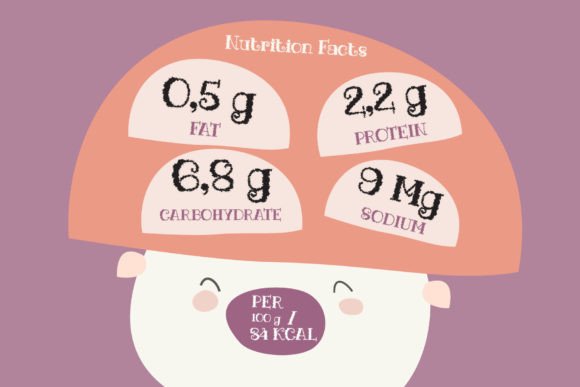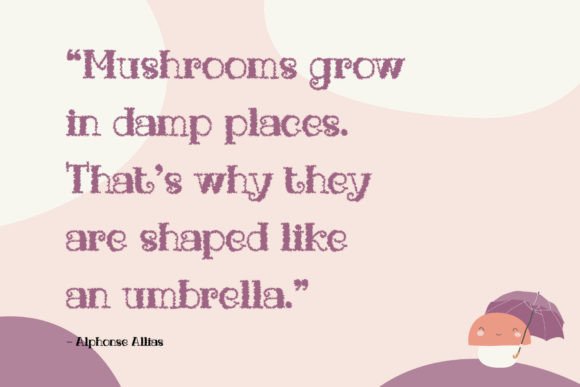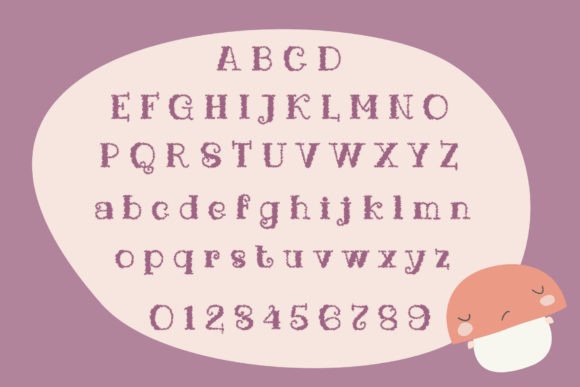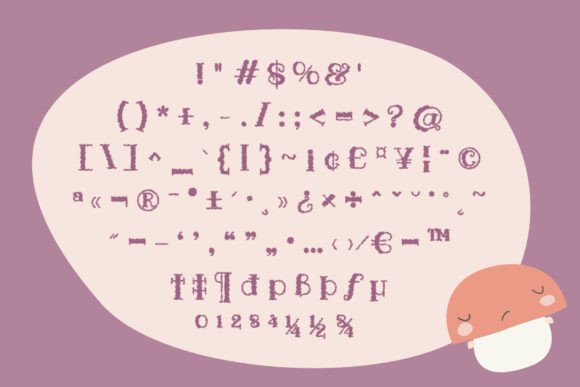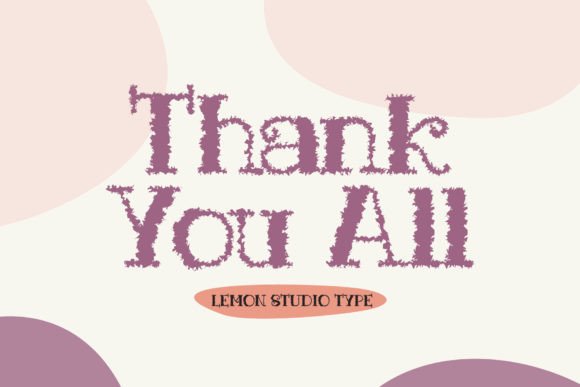
Introduction to Mushgroof Font
Have you ever found yourself in the middle of a creative project, scrolling through design resources, searching for that perfect font to bring your idea to life? I know I have. The perfect font can make all the difference between a good design and a great one. And that’s exactly what I was looking for when I stumbled upon the enchanting Mushgroof Font.
Its unique, whimsical shape and quirky texture immediately caught my attention. The Mushgroof Font is more than just a design element – it’s a statement piece that adds a touch of playfulness and sophistication to any creative project. Whether you’re working on a branding project or creating a social media graphic, this font is sure to bring a smile to your face and a touch of magic to your design.
Key Features of Mushgroof Font
- Designed with precision, offering a crisp resolution of 300 DPI for high-quality output.
- Supports a range of languages, making it a versatile choice for global creative projects.
- Includes a comprehensive character set, including uppercase and lowercase letters, numbers, and special characters.
Honest Review: Mushgroof Font
As a designer, I’m always on the lookout for high-quality design resources to elevate my creative projects. Recently, I had the chance to test out the Mushgroof Font, and I’m excited to share my thoughts.
Here are some of the things that really stood out to me about the Mushgroof Font:
- ✨ The font is incredibly versatile, making it perfect for a wide range of creative projects.
Of course, no font is perfect, and the Mushgroof Font has a few limitations:
- ⚠️ The font may not be suitable for use in very small sizes or on very low-resolution displays.
- ⚠️ Some users may find the font’s aesthetic to be a bit too playful or whimsical for their taste.
Overall, I was really impressed with the Mushgroof Font. It’s a solid addition to any designer’s toolkit, and I think it has the potential to be a game-changer for creative projects that require a unique and eye-catching font.
Common Use Cases for Mushgroof Font
Mushgroof Font is ideal for creating designs with a playful, whimsical feel.
Use it for social media graphics, blog posts, and other online content.
It’s also perfect for creating invitations, flyers, and other print materials.